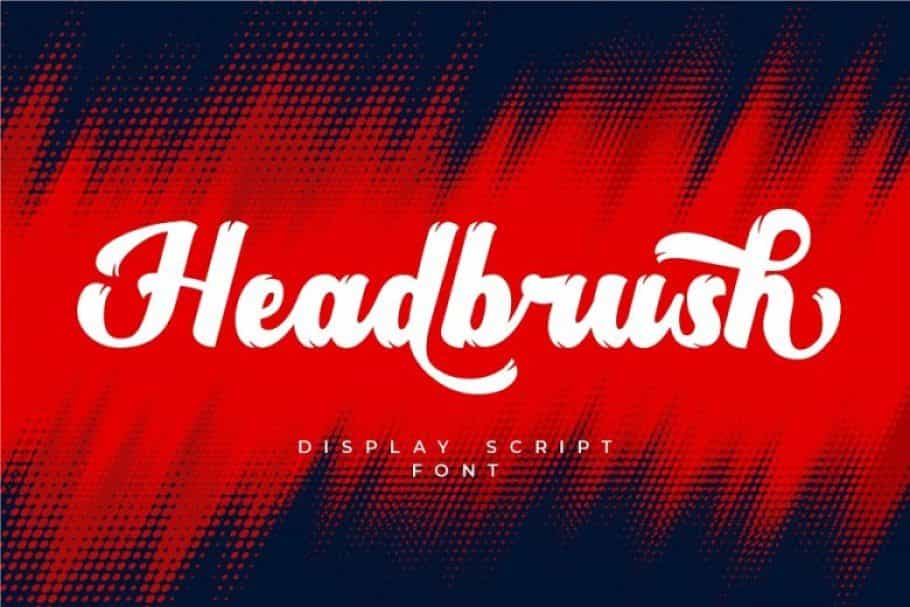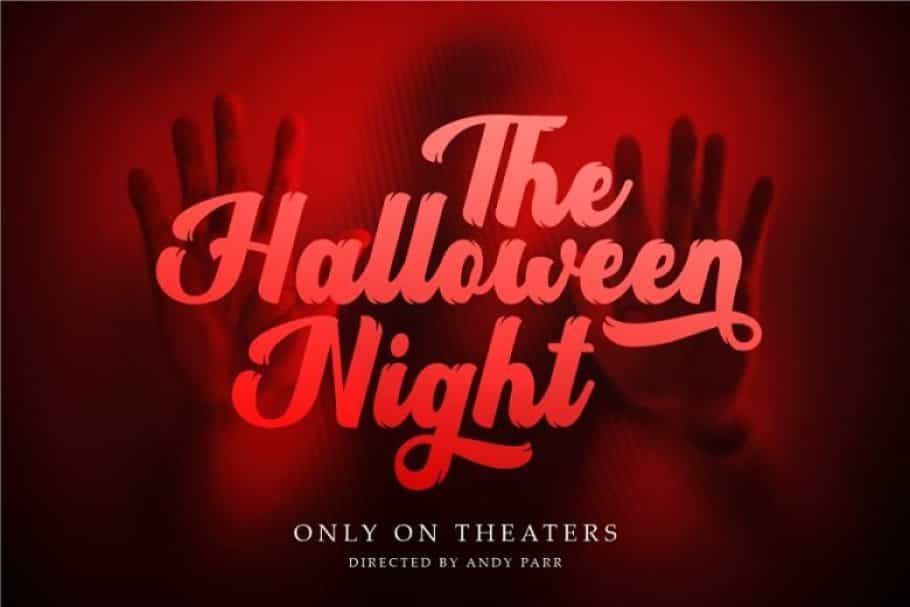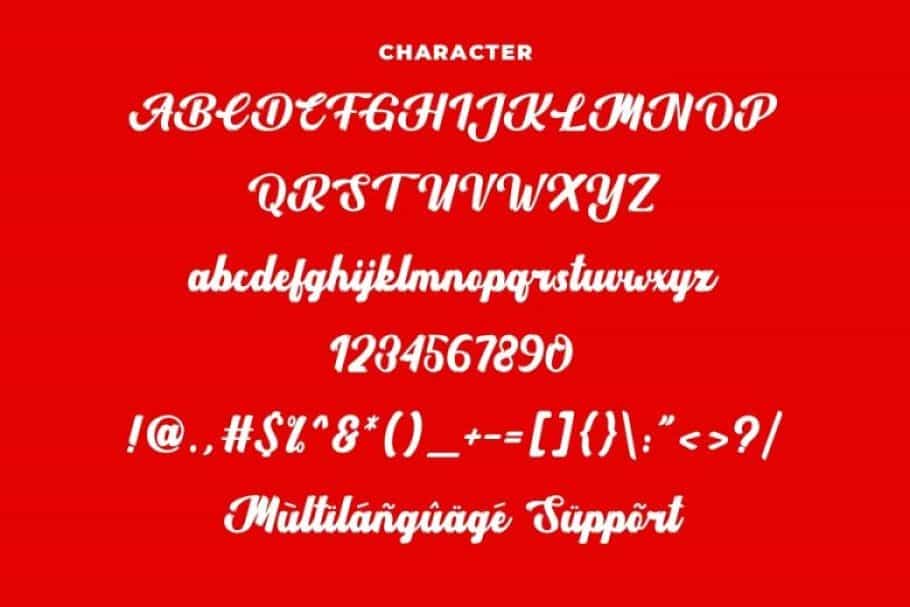
Headbrush is a very striking font that is based on a bold script with brush elements on all characters that give this font a very unique and attractive look. Suitable for designing logos, t-shirt designs, album covers, poster, labels, brand name, magazine, and even social media advertising. Its brush effects also give it a very special and appealing look.